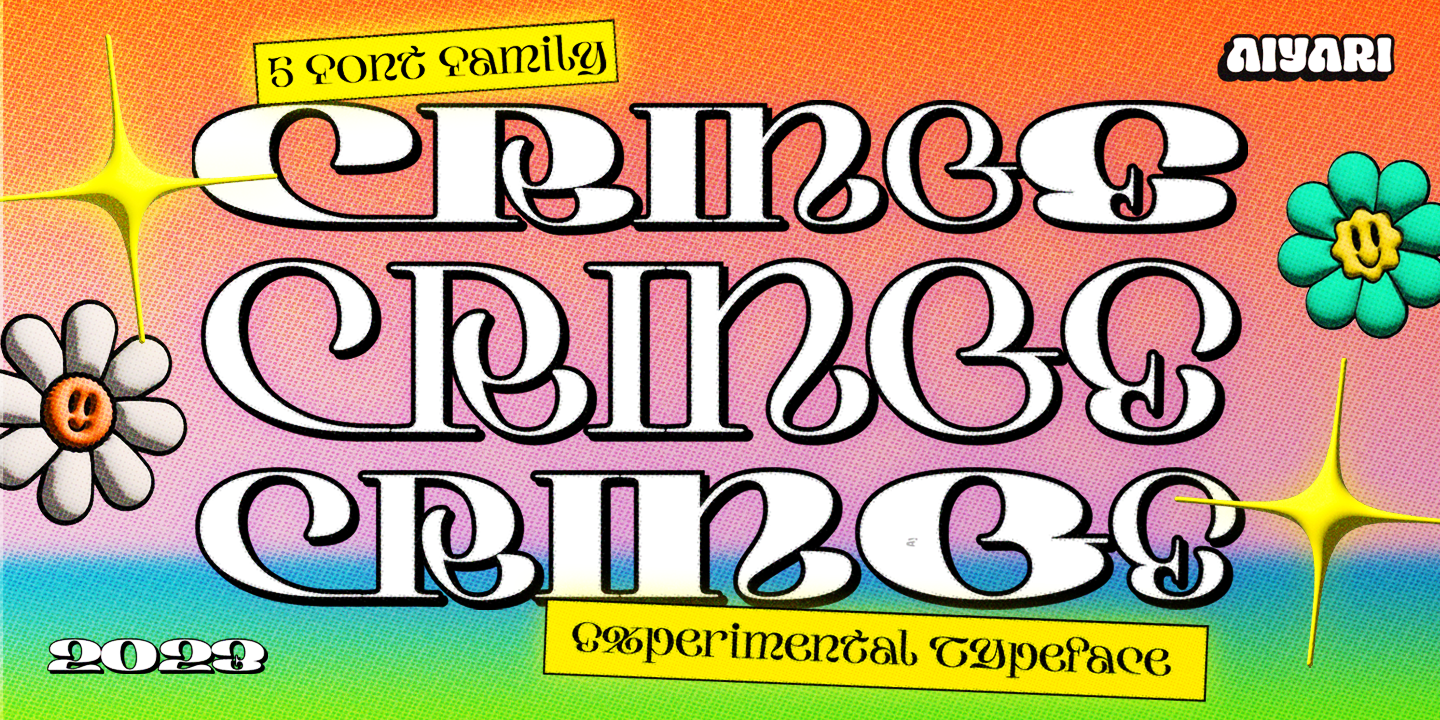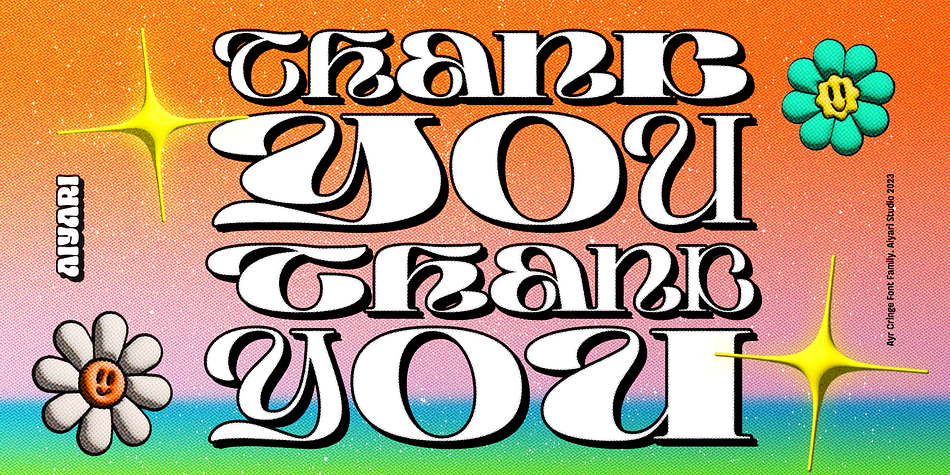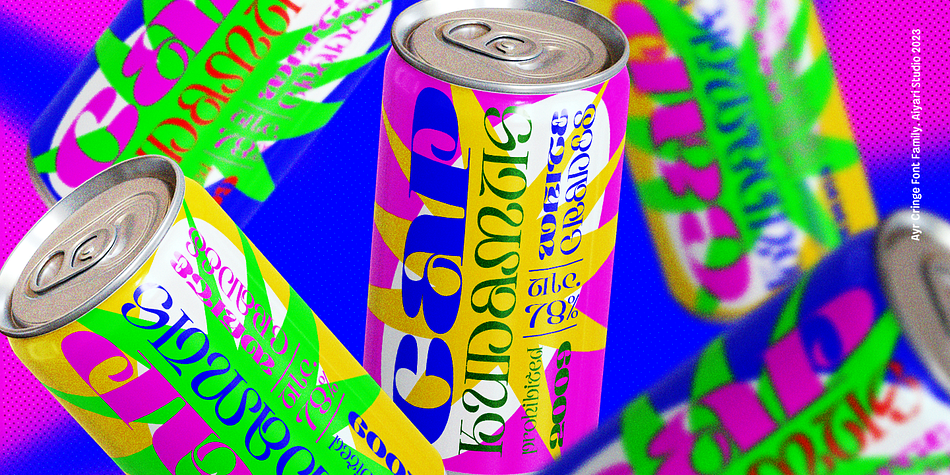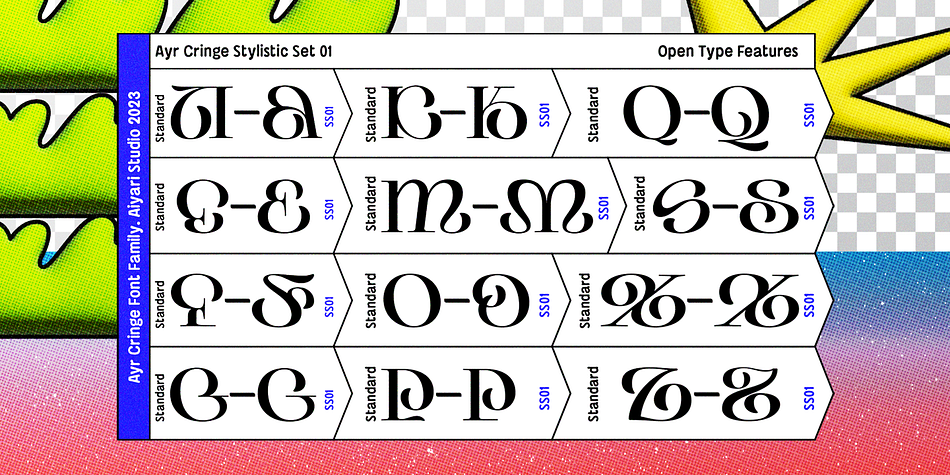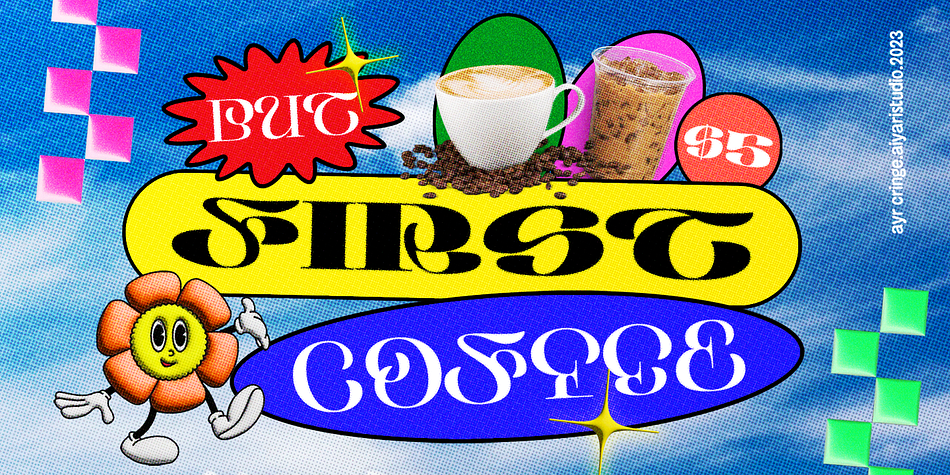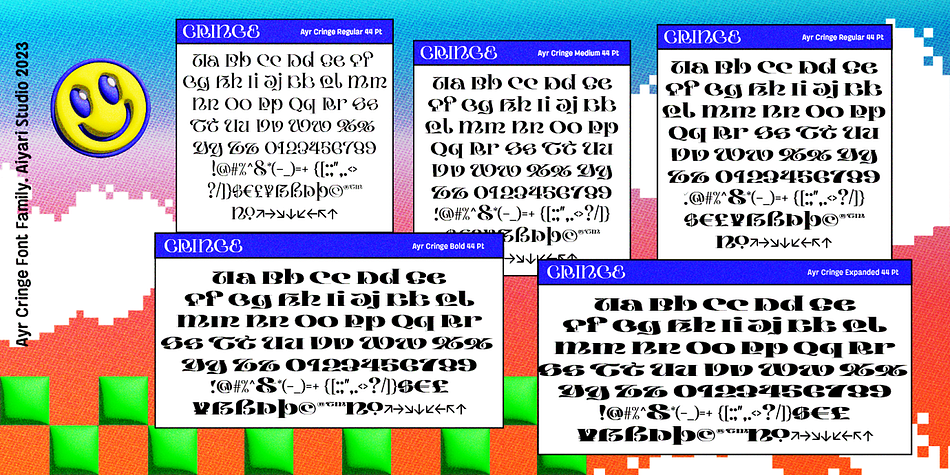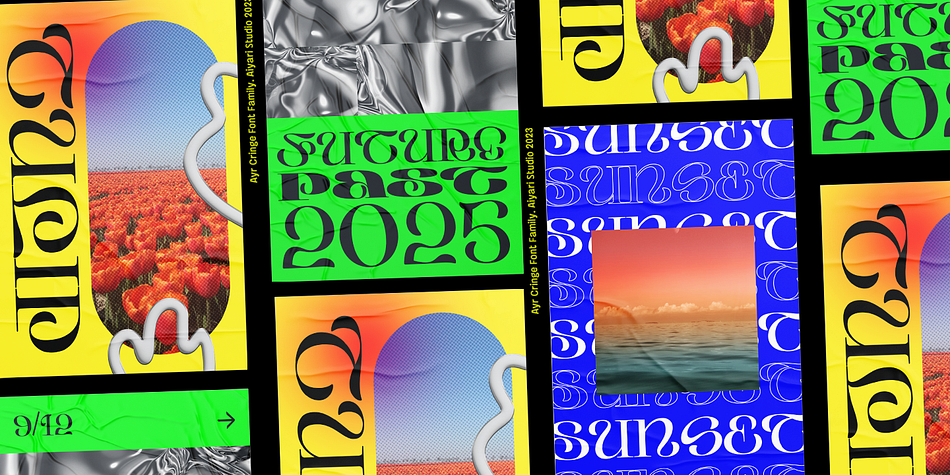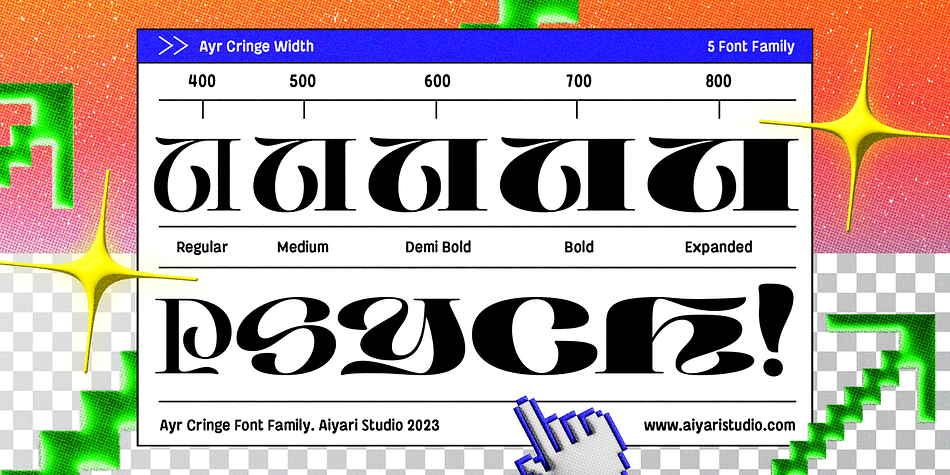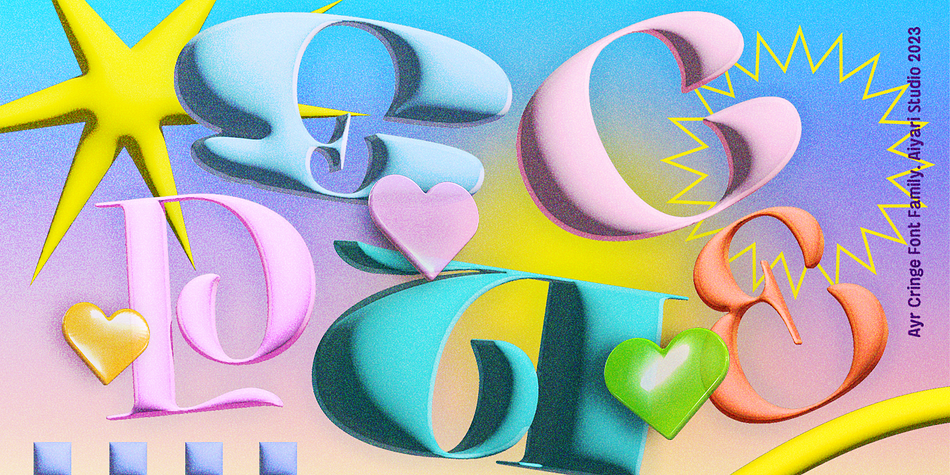
Cringe
Designed by Ricky Rinaldi, Cringe is a display and historical font family. This typeface has five styles and was published by Aiyari.
Introducing “Cringe”: a captivating typeface that draws inspiration from the mesmerizing world of psychedelic pop culture and combining it with a uncial letter form and calligraphy approach. Each character exudes a sense of whimsy and free-spiritedness. Cringe Font Family contains 5 style regular, medium, semi bold, bold, & Expanded. It comes with Stylistic set & ligatures.